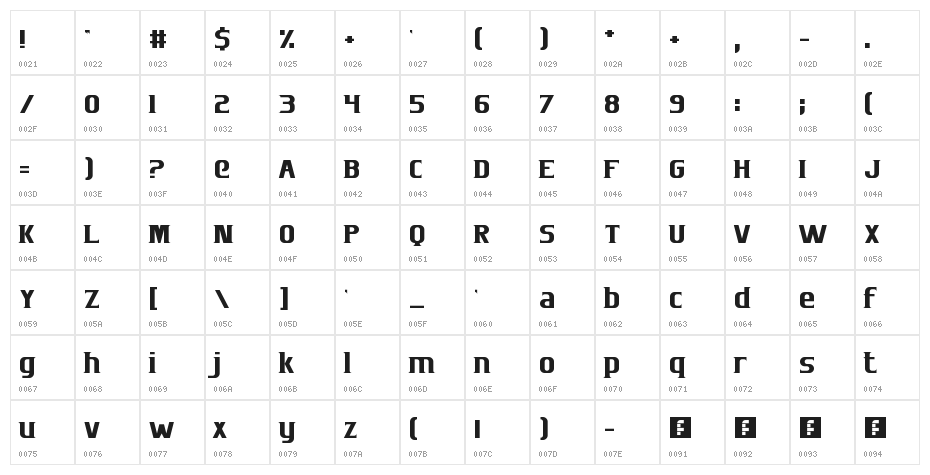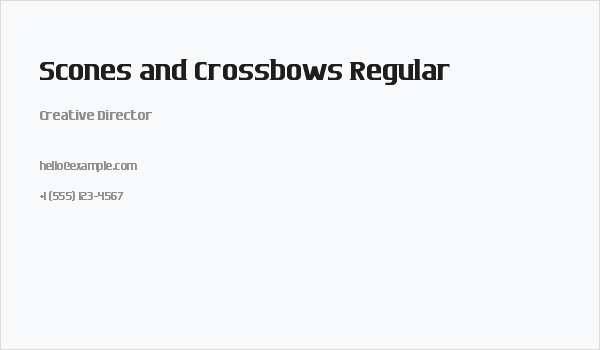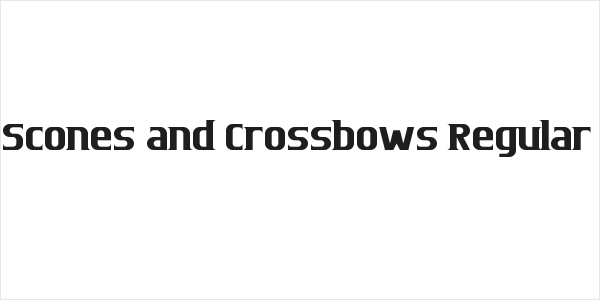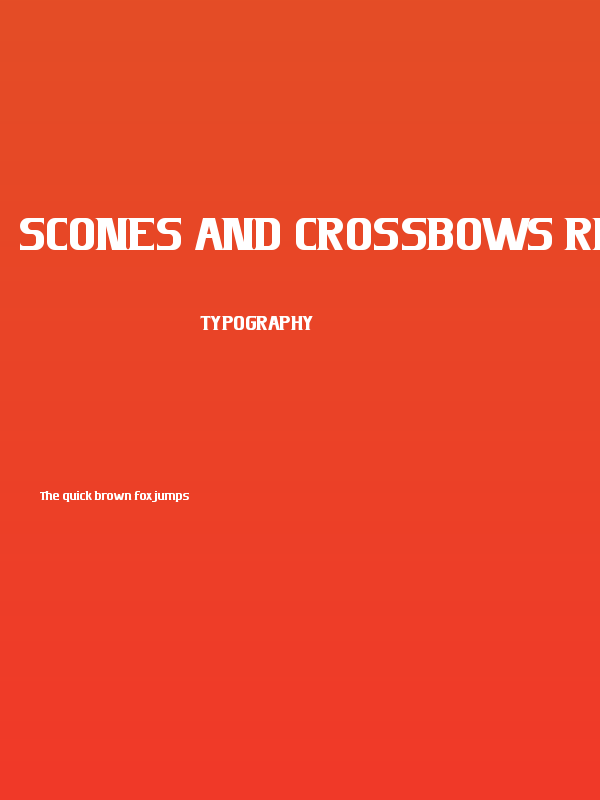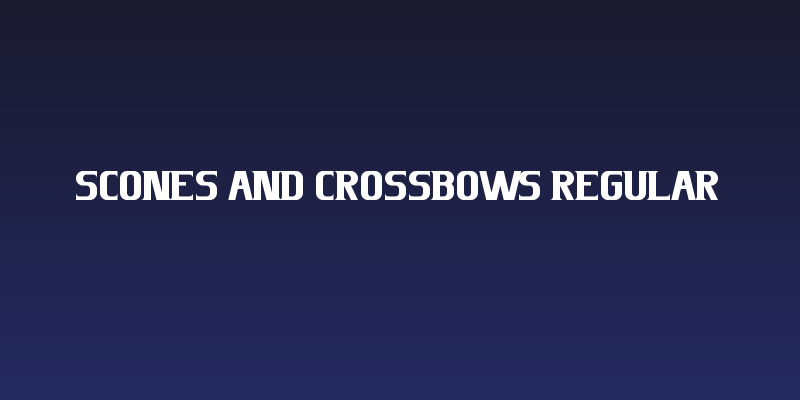
Scones and Crossbows Regular Font
Scones and Crossbows Regular Description
This font features a bold and striking design with a strong presence. The characters have a distinct, angular style with sharp edges and a slightly condensed form. The uppercase letters are particularly bold, while the lowercase letters maintain a consistent weight, providing a cohesive look. The numerals are robust and align well with the overall style, making them easy to read. Special characters are designed to match the boldness of the alphabet, ensuring uniformity across all glyphs. This font is ideal for making a statement, with its high contrast and unique design elements.
| Proposed Projects | Ideal for branding, posters, headlines, and any project that requires a bold, impactful typeface. |